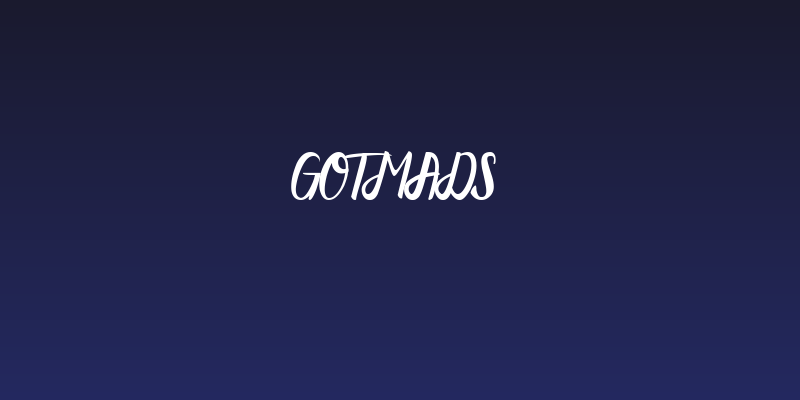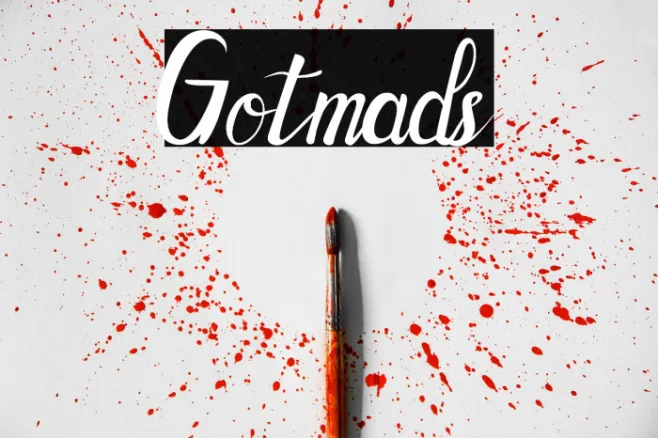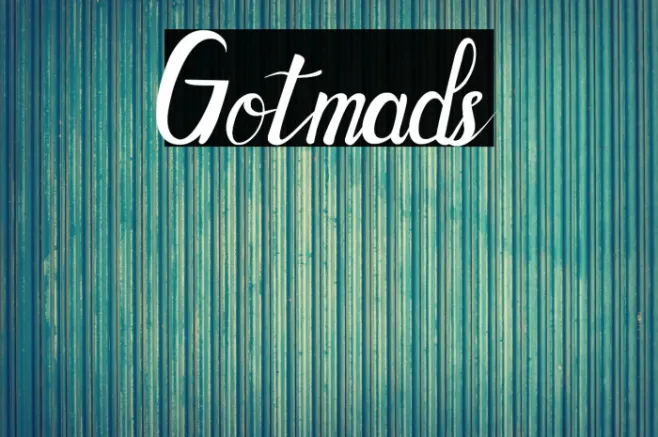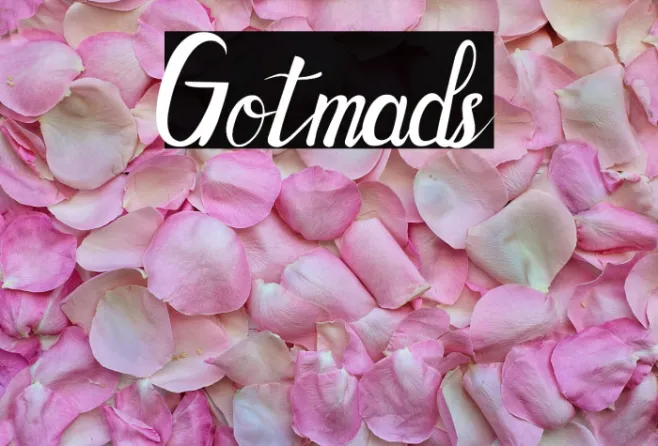
Gotmads Font
Gotmads Description
This font features a dynamic and flowing script style, characterized by its elegant and cursive letterforms. The uppercase letters are bold and sweeping, with distinctive loops and flourishes that add a sense of movement and grace. The lowercase letters maintain a consistent flow, with smooth connections between each character, enhancing readability while preserving the decorative nature. The numerals are clear and slightly more upright, providing a nice contrast to the letters. Special characters are integrated seamlessly, maintaining the overall aesthetic. This font is well-suited for projects that require a touch of sophistication and flair.